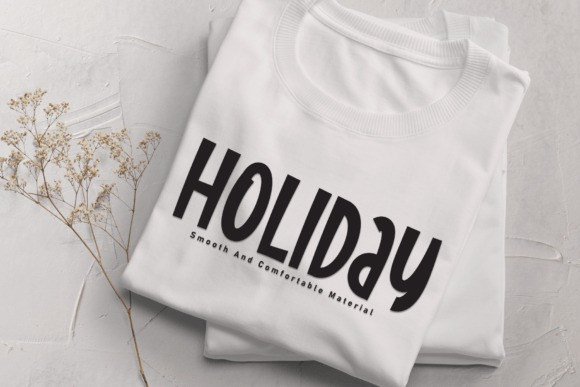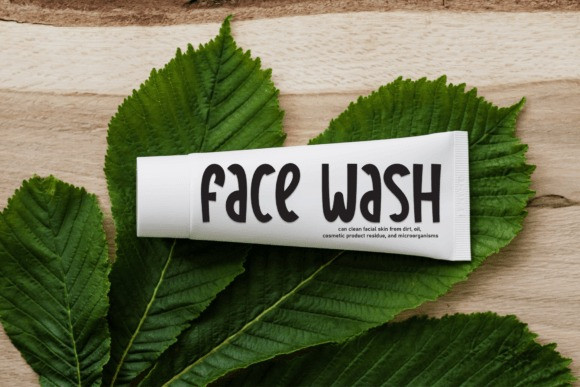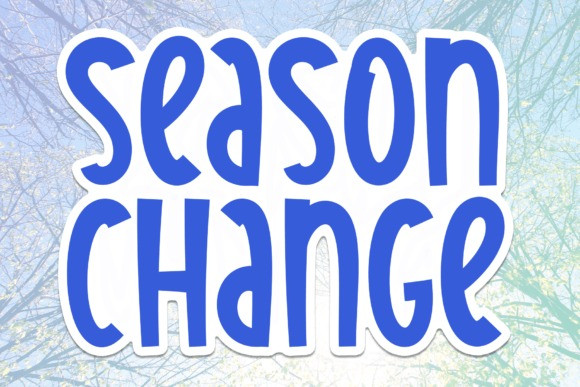
Season Change Font
Season Change Font is a sweet and friendly handwritten font. Its natural and unique style makes it incredibly fitting to a large pool of designs. The only limit is your imagination!